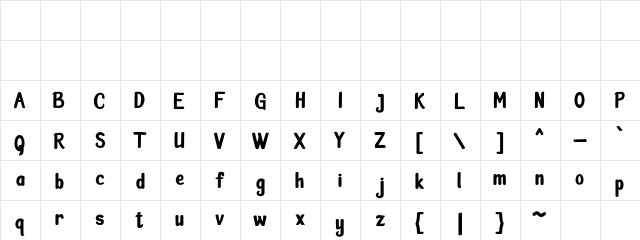
Pinklineryh Regular
| Designer | Wahyu Saputra |
Design Context for Pinklineryh Typeface
Pinklineryh is a composed and adaptable typeface that performs quietly and consistently across a wide range of design contexts.